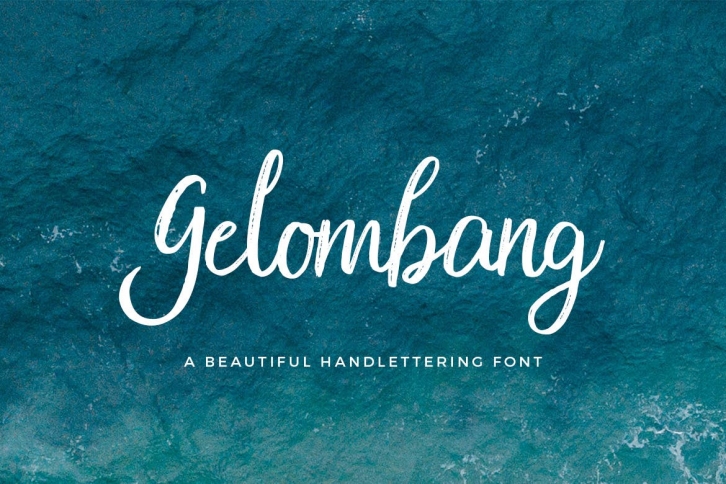
Gelombang Script is a great font that was designed by Cocolony. Imagine the amount of combinations you can create using this font! The archive is 4.68 MB and it was released on November 1, 2017. Gelombang Script looks beautiful on wedding invitations, greeting cards, logos, posters, labels, t-shirt designs, logos, business cards and is perfect for use in ink or watercolor works, fashion, magazines, packaging and food menus, children's books and more!